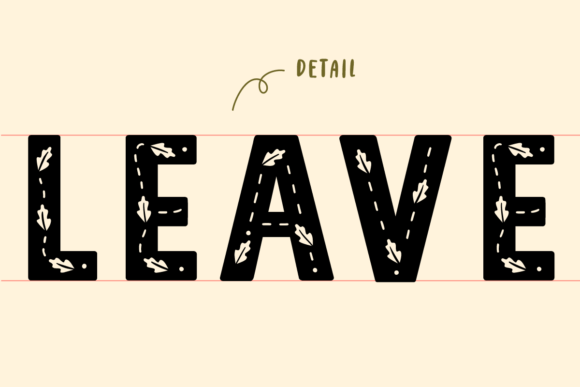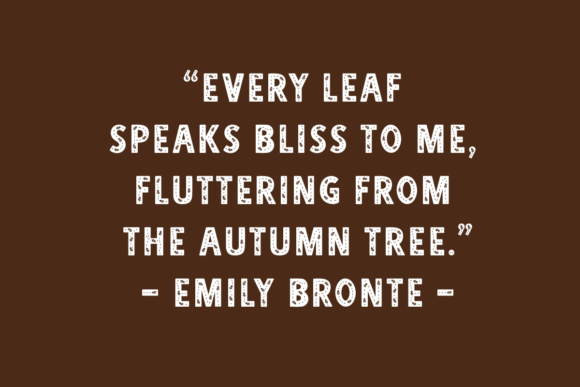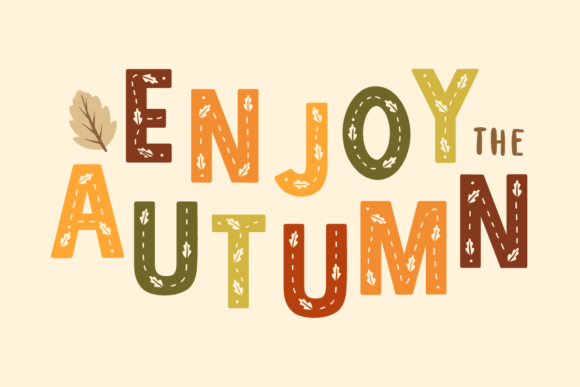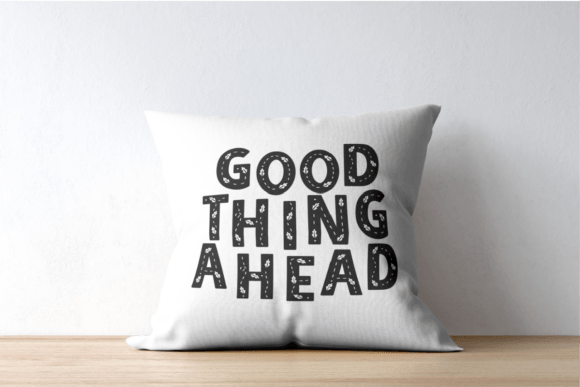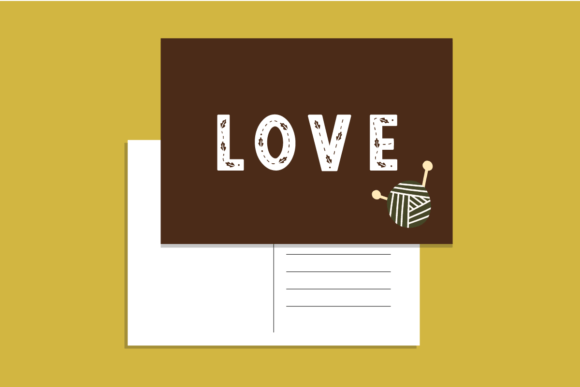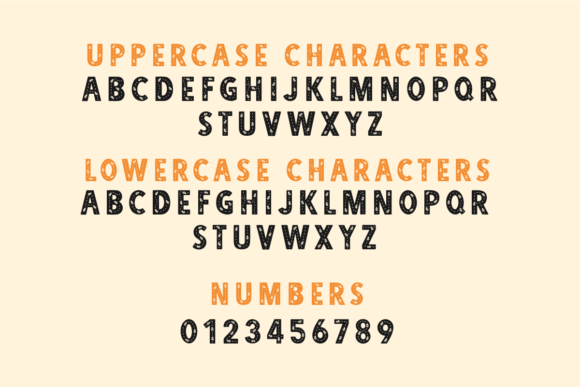
Welcome the Cozy Charm of Autumn with the Perfect Autumn Season Font
As the leaves change colors and the air grows crisper, the autumn season brings a sense of coziness and warmth that’s hard to resist. For designers and crafters, this time of year offers endless inspiration for creative projects. Whether you’re working on circuit projects, designing shirts, creating retro-style graphics, or crafting Christmas invitations, a font that captures the playful and festive spirit of autumn is essential. That’s where the AUTUMN SEASON font comes in – a cute and playful decorative font that’s perfect for adding a touch of seasonal charm to your designs.
What Makes AUTUMN SEASON Font So Special?
The AUTUMN SEASON font is designed to bring a sense of fun and playfulness to your projects. Its unique and decorative style is reminiscent of traditional autumnal themes, with a modern twist that makes it versatile and easy to use. Here are just a few reasons why this font stands out:
- Cute and Playful: The AUTUMN SEASON font features a delightful, hand-crafted design that’s sure to bring a smile to your face. Its playful style is perfect for creating eye-catching graphics and designs that capture the lighthearted spirit of autumn.
- Highly Versatile: Whether you’re working on circuit projects, shirts, retro designs, Christmas invitations, mugs, stickers, playful quotes, posters, logos, greeting cards, or packaging, this font is up to the task. Its flexibility makes it an excellent addition to any designer’s toolkit.
- Easy to Use: The AUTUMN SEASON font is designed to be user-friendly, making it simple to incorporate into your projects. Whether you’re a seasoned designer or a crafting novice, you’ll appreciate the ease with which you can add a touch of autumnal charm to your work.
With the AUTUMN SEASON font, the possibilities are endless. Here are just a few ideas to get you started:
- Circuit Projects: Add a touch of autumnal charm to your circuit projects with this delightful font. Perfect for creating custom signs, decorations, or even wearable technology.
- Shirts and Apparel: Design eye-catching shirts, hoodies, and hats with the AUTUMN SEASON font. Its playful style is sure to make your designs stand out.
- Retro Designs: Create vintage-inspired graphics and posters with a modern twist. The AUTUMN SEASON font is perfect for adding a touch of nostalgia to your designs.
- Christmas Invitations: Get into the holiday spirit with custom Christmas invitations featuring the AUTUMN SEASON font. Its festive style is sure to set the tone for a fun and memorable holiday season.
- Mugs and Drinkware: Add a touch of autumnal charm to your mugs, water bottles, and other drinkware with this delightful font.
- Stickers and Labels: Create custom stickers and labels with the AUTUMN SEASON font. Perfect for decorating laptops, water bottles, or any other surface that needs a touch of personality.
Tips for Getting the Most Out of the AUTUMN SEASON Font
To make the most of the AUTUMN SEASON font, here are a few tips to keep in mind:
- Experiment with Colors: Autumn is all about warm, rich colors. Experiment with different color palettes to find the perfect combination for your design.
- Mix and Match Fonts: Don’t be afraid to combine the AUTUMN SEASON font with other fonts to create a unique and eye-catching design.
- Play with Texture: Add depth and interest to your design by incorporating texture and patterns.
The AUTUMN SEASON font is a versatile and delightful addition to any designer’s toolkit. Its cute and playful style is perfect for capturing the spirit of autumn and adding a touch of seasonal charm to your projects. Whether you’re a seasoned designer or a crafting novice, this font is sure to inspire creativity and bring a sense of fun to your work. So why wait? Download the AUTUMN SEASON font today and start creating your own autumnal masterpieces!